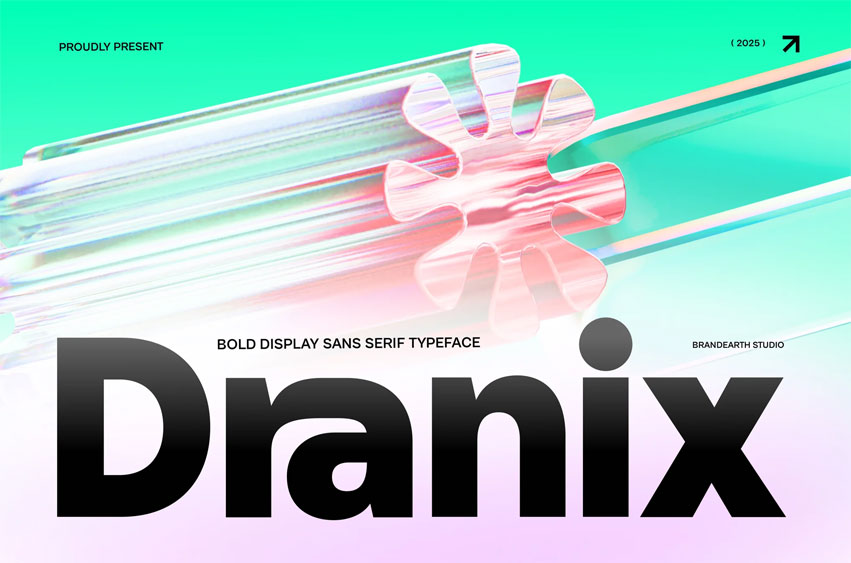
Dranix Font Sans Serif is a bold, modern display typeface designed with geometric precision and smooth curves to create strong visual impact. Its heavy weight and clean lines make it perfect for commanding attention in headlines, posters, packaging, branding, and digital graphics. Dranix combines contemporary aesthetics with timeless clarity, offering uppercase, lowercase, numbers, and punctuation to support versatile design needs.
Relevance and Use Cases is perfect for logo design, branding identity, packaging design, editorial layout, poster design, advertising headline, digital banner, music cover, modern UI typography, magazine title, bold statement graphics, creative merchandise, product label, tech branding, retro design projects, web typography, promotional campaign, event poster.